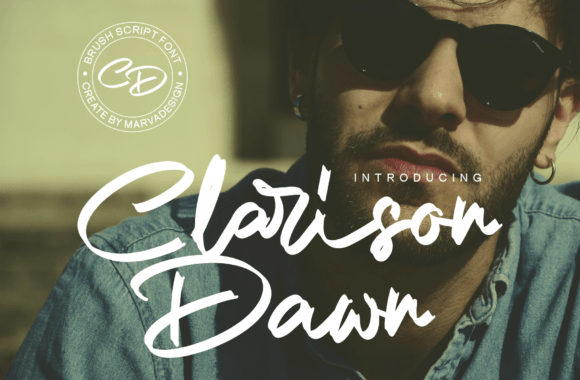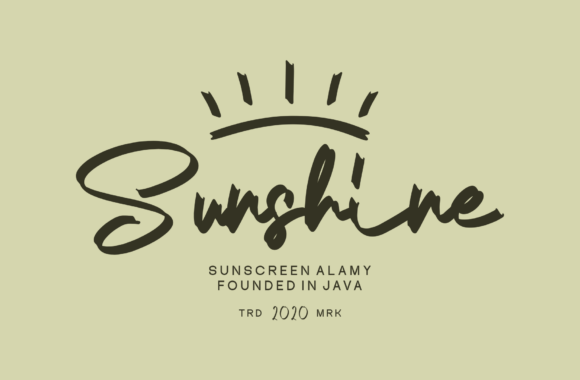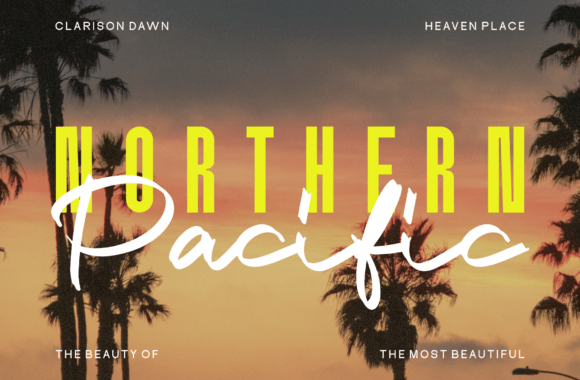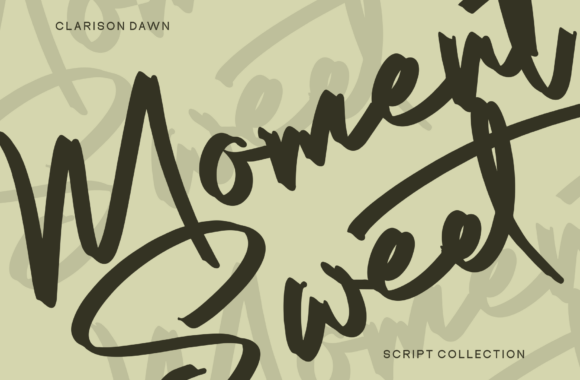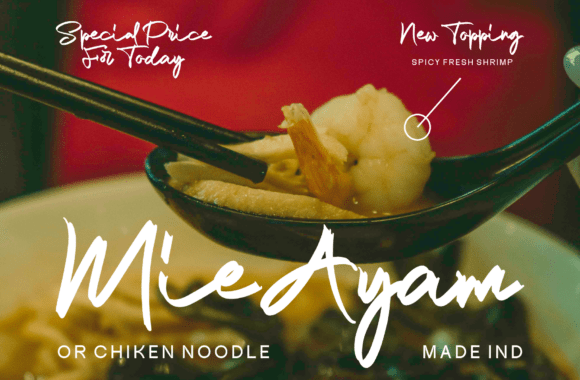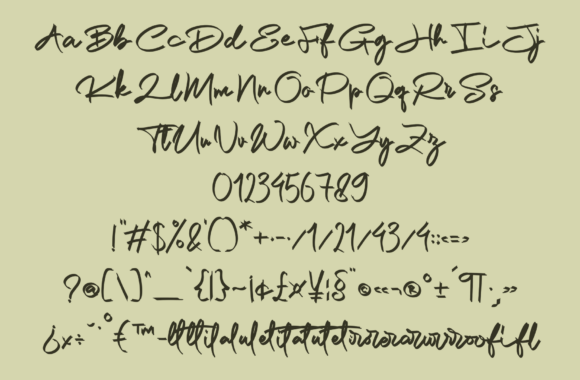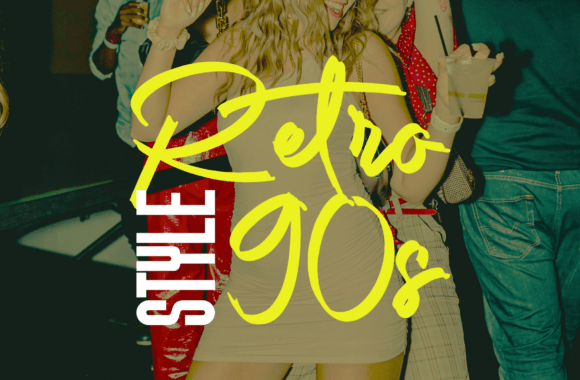
The Perfect Brush for Your Creative Canvas
Have you ever found yourself staring at a blank page, waiting for inspiration to strike? For designers, this moment is all too familiar. It’s the moment when creativity is sparked, and the possibilities are endless. And what better way to bring your ideas to life than with a font that captures the essence of artistic expression?
Enter Clarison Dawn Font, a stunning brush script font that embodies the spirit of hand-painted beauty. With its expressive, natural brush strokes, this font is perfect for adding a touch of casual elegance to your designs. Whether you’re working on branding, social media graphics, or poster designs, Clarison Dawn Font is sure to elevate your visual identity and make it stand out from the crowd.
Clarison Dawn Font Features
- Font Family: Clarison Dawn
- Font Style: Script, Calligraphy
- Size: 1,024 glyphs, 8,000 characters
- Unique Characteristics:
- Highly legible and elegant script font
- Perfect for invitations, wedding stationery, and luxury branding
- Features a mix of classic and modern elements
- Resolution: Supports various resolutions, including print and web
Clarison Dawn Font Review
Overall, I’m quite impressed with the Clarison Dawn Font. It has a certain charm to it that’s hard to ignore. ✨ Here are some of its strengths:
- Unique blend of modern and vintage elements, making it perfect for creative projects.
- Excellent legibility, making it easy to read even at smaller font sizes.
- Highly customizable, allowing designers to tailor it to their specific needs.
However, there are some limitations that might hold it back from being a top choice for some designers. ⚠️ These include:
- Not ideal for large-scale or high-impact projects, as it can feel a bit too whimsical.
- Lack of consistency in certain weights, which can be jarring for some users.
- No clear, cohesive direction for the font’s use, making it harder to integrate into larger design systems.
Overall, I’d say the Clarison Dawn Font is a solid choice for designers who want a unique, creative look. While it may not be perfect, it’s definitely worth considering for the right project.
Getting the Most Out of Clarison Dawn Font
For optimal results, use the Clarison Dawn font in conjunction with a clean and minimalist design aesthetic.
Experiment with different font sizes and colors to create visual hierarchy and emphasis.
The Clarison Dawn font is ideal for:
- Brand identities and logos
- Web design and user interface
Alternatives to Clarison Dawn Font
Lato is a clean and modern sans-serif font that is highly legible. It is suitable for various design projects, including digital and print materials. Lato has a similar friendly feel to Clarison Dawn Font but with a more neutral tone.
Montserrat is a geometric sans-serif font that is highly versatile. It is ideal for use in digital interfaces, signage, and other design projects where a clear and modern feel is required. Montserrat has a more urban feel compared to Clarison Dawn Font, making it suitable for projects with a strong city or industrial vibe.
Merriweather is a classic serif font that is highly legible. It is suitable for use in print materials, such as books and magazines, as well as digital projects where a traditional feel is desired. Merriweather has a more formal tone compared to Clarison Dawn Font, making it suitable for projects with a high level of professionalism.
Open Sans is a modern sans-serif font that is highly legible. It is suitable for use in digital interfaces, signage, and other design projects where a clear and friendly feel is required. Open Sans has a more neutral tone compared to Clarison Dawn Font, making it suitable for a wide range of design projects.
Creative Project Ideas Using Clarison Dawn Font
Create a unique and eye-catching wedding invitation that sets the tone for a magical and romantic wedding.
To use Clarison Dawn Font, pair it with elegant floral patterns and pastel colors to evoke a sense of whimsy and romance. Use the font for the invitation’s main text, such as the bride and groom’s names and the wedding date.